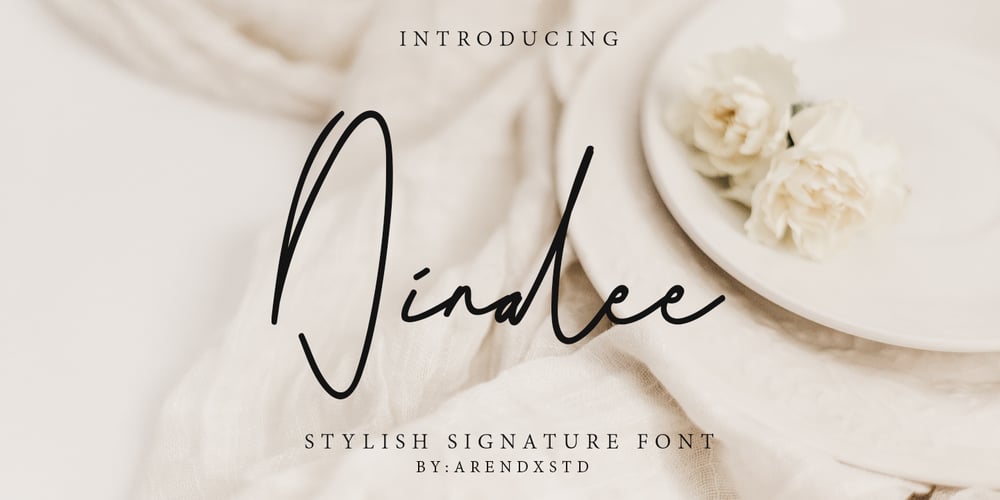
Dinalee Font Family was designed by Asep Rendi and published by Arendxstudio. Dinalee contains 1 styles and family package options. Introducing our newest Dinalee Stylish Signature Font. Dinalee Signature font is made as elegant as possible for the use in a variety of design projects, including logos & amps, branding, wedding designs, social media posts, advertisements, product designs, magazines and more.